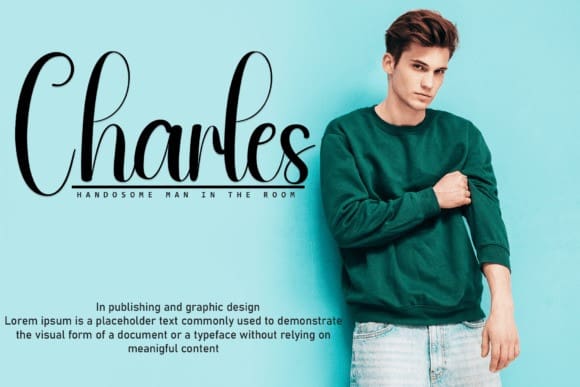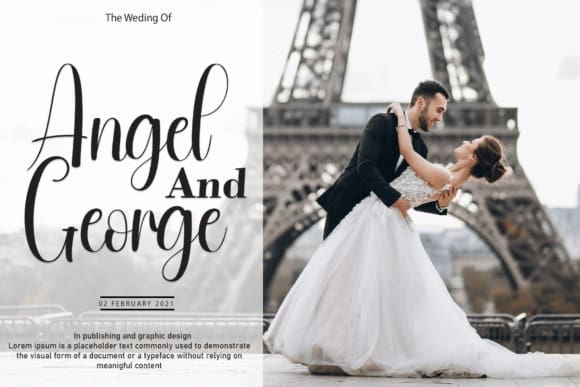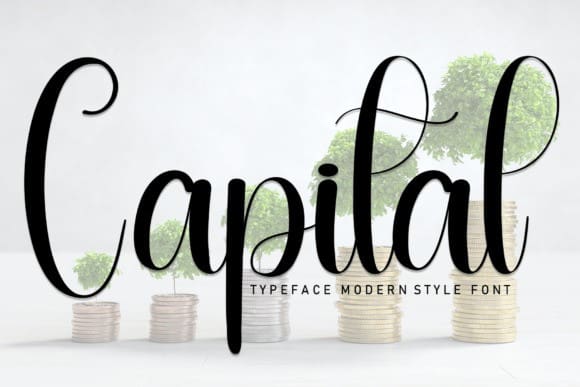
Capital Script Typeface
Capital Script Typeface is a sweet and friendly handwritten font. Cute and fun, this font is ideal for writing wedding invitations, cards, or any other design that might need a fun touch!